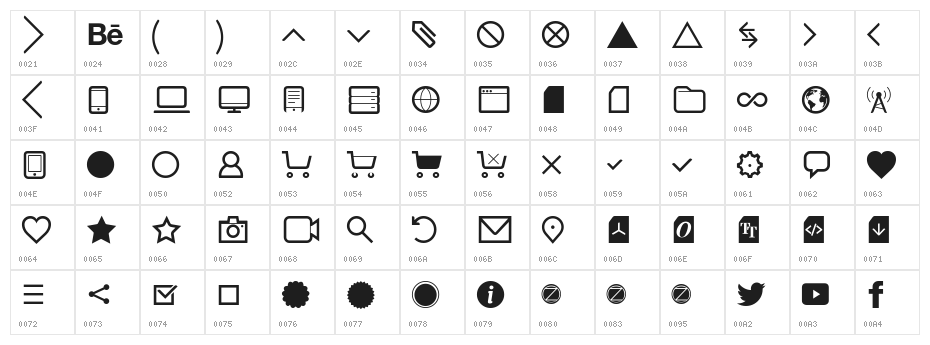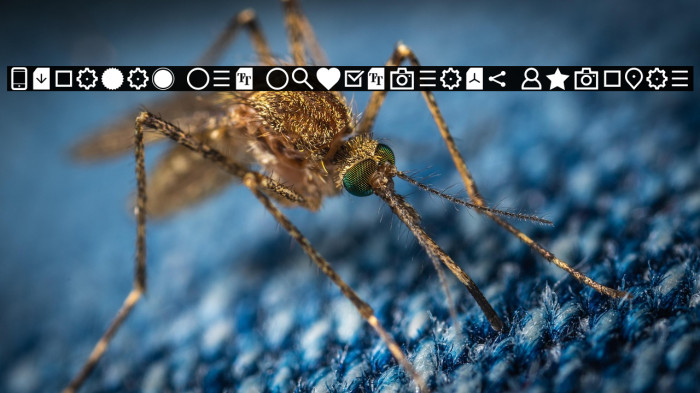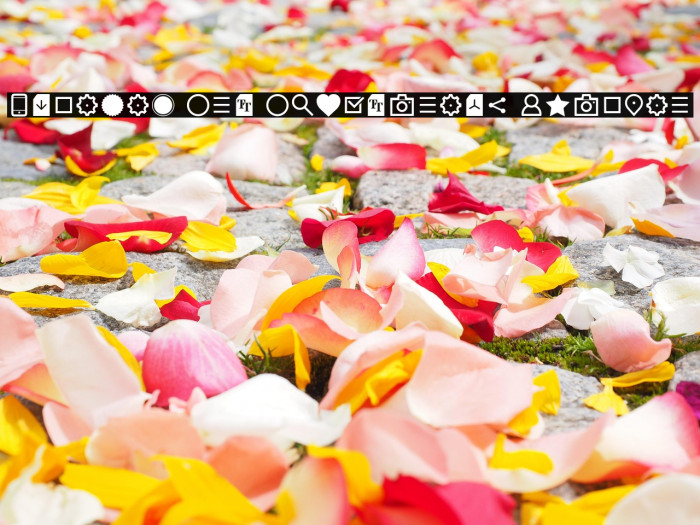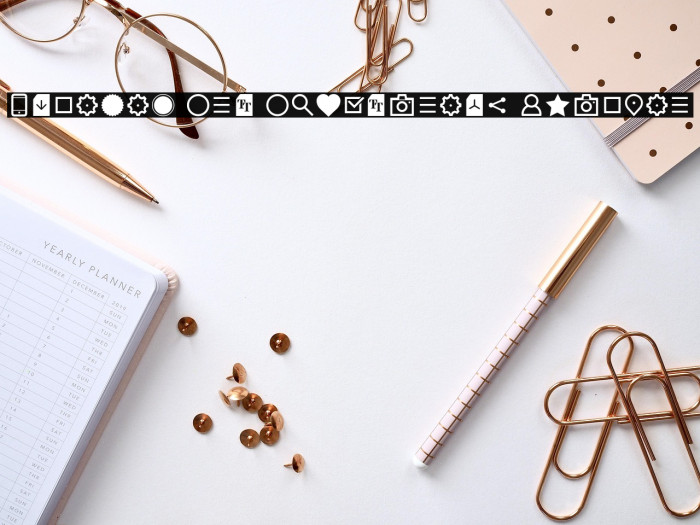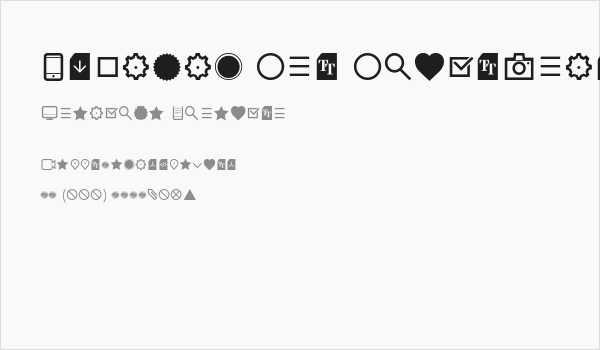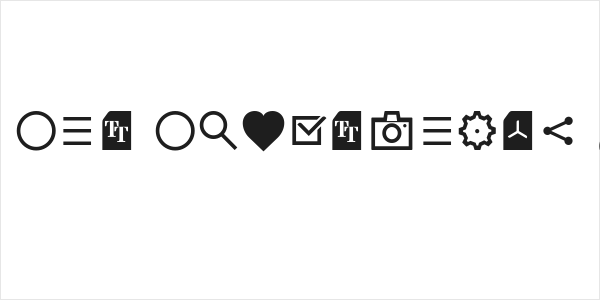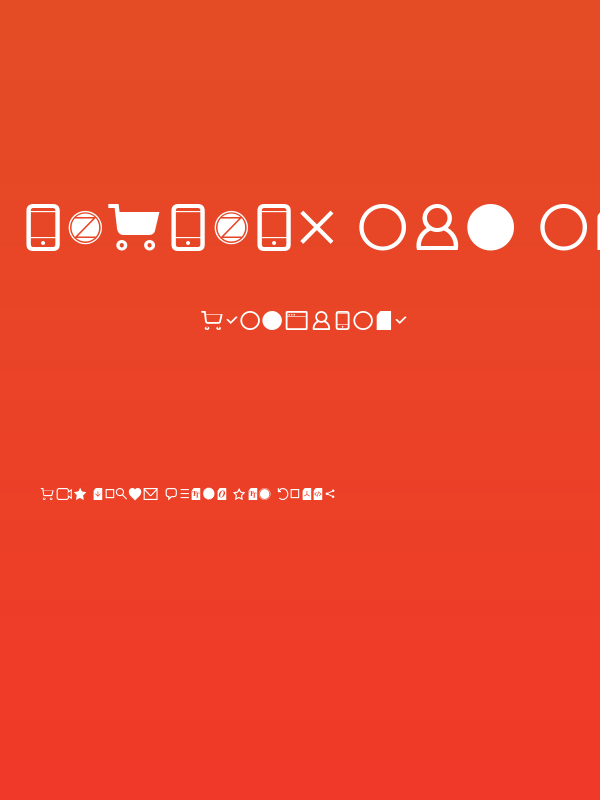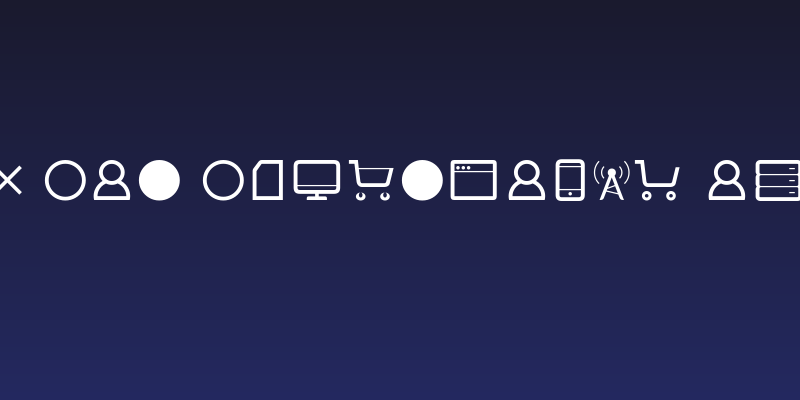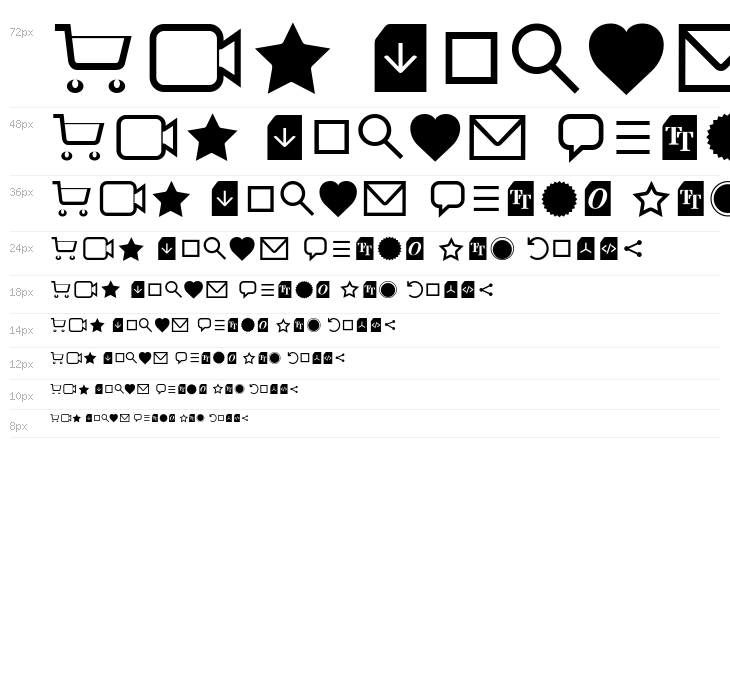
Aquawax Pro Pictograms Regular Font
Aquawax Pro Pictograms Regular Description
This collection features a diverse range of pictograms, each designed with a clean and modern aesthetic. The icons include various representations of technology, communication, and navigation, such as devices, shopping carts, and location markers. The style is consistent, with bold lines and simple shapes that ensure clarity and readability at any size. These icons are versatile, suitable for both digital and print media, and can be used to enhance user interfaces, presentations, and marketing materials. The uniformity in design allows for seamless integration into various projects, providing a cohesive look and feel.
Use CaseIcons, User Interfaces, Infographics
Proposed ProjectsIdeal for app interfaces, website icons, infographics, and marketing materials.